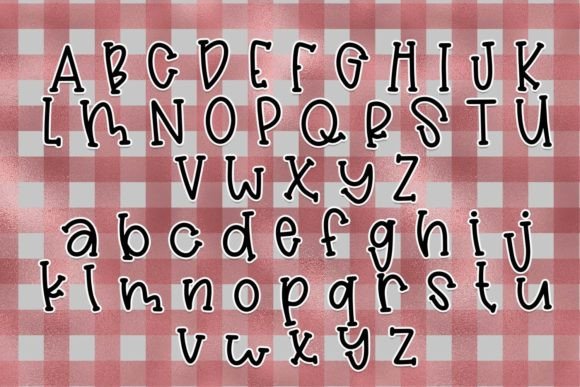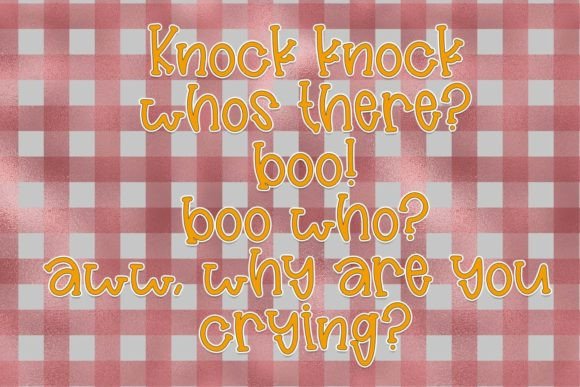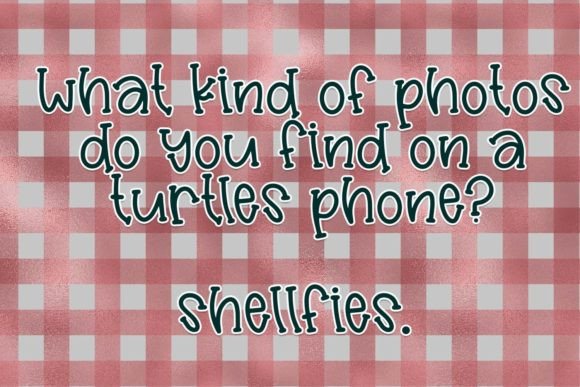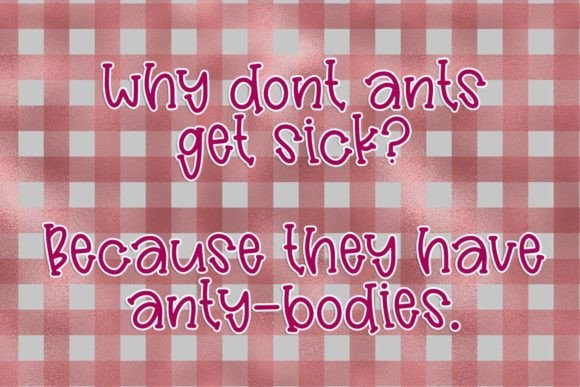
Muffin Jokes Font
About Muffin Jokes Font
“Muffin Jokes” is a fun and whimsical hand-written font designed to add a playful touch to your projects. This font includes both uppercase and lowercase letters, along with numbers and punctuation, providing a complete set for various design needs.
The versatility of “Muffin Jokes” makes it suitable for a wide range of projects, appealing to both kids and adults. Whether you’re working on designs for children’s books, playful posters, greeting cards, or any other creative endeavor that requires a lighthearted and fun font, “Muffin Jokes” fits the bill.
The hand-written style of this font adds a personal and organic feel to the text, making it engaging and inviting. The combination of uppercase and lowercase letters allows for creative and dynamic typography, enhancing the overall visual appeal of your designs.
Incorporate “Muffin Jokes” into your projects to bring a sense of humor and whimsy. This font is a delightful addition to your toolkit for creating designs that capture the attention and imagination of your audience.
In summary, “Muffin Jokes” is a fun and whimsical hand-written font with uppercase and lowercase letters, perfect for both kid and adult projects. Its playful design makes it a great choice for a variety of creative applications, adding a touch of humor to your text.